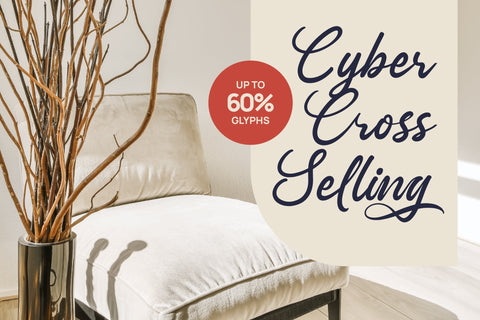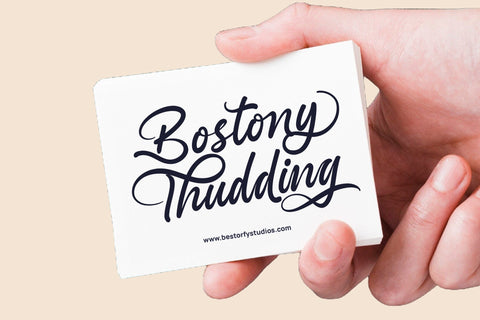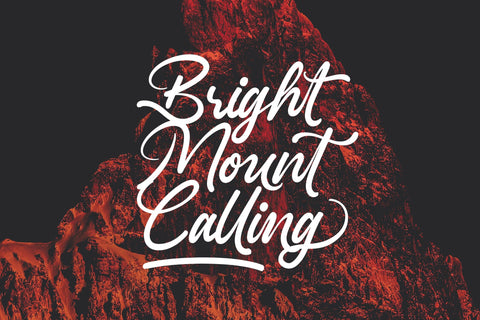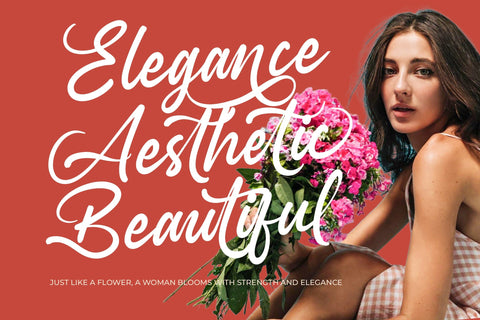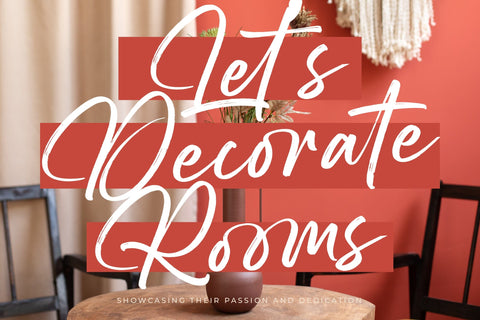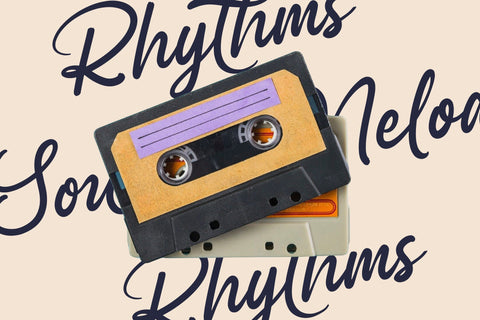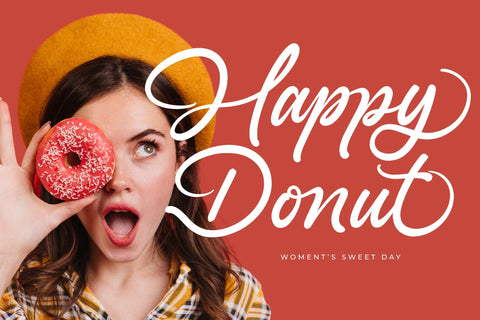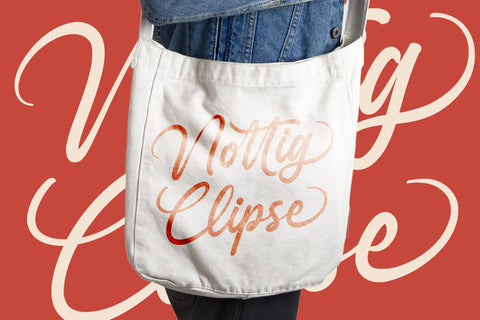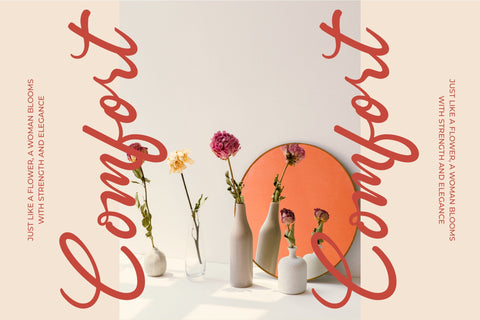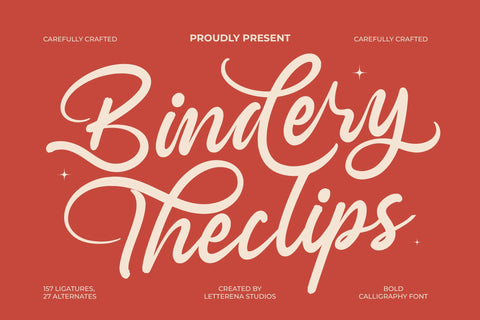
Bindery Theclips - Bold Calligraphy Font
Bindery Theclips - Bold Calligraphy Font , from Letterena, is a Luxury Script font, suitable for any projects such as: logos, branding projects, homeware designs, product packaging, mugs, quotes, posters, shopping bags, t-shirts, book covers, name card, invitation cards, greeting cards, label, photography, watermark, special events, and all your other luxury and beautiful projects that need a Luxury Script taste.
Ligature 157 Alternate 27 & Swashes